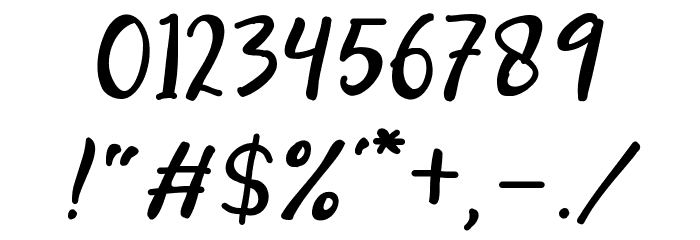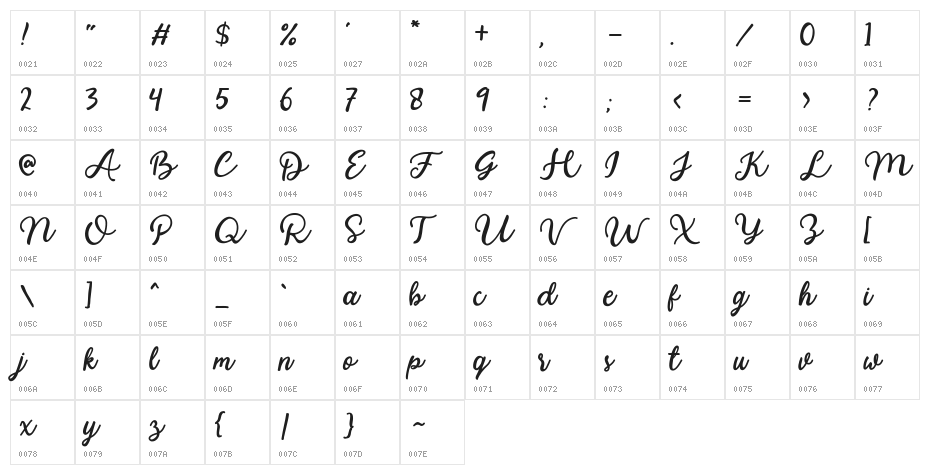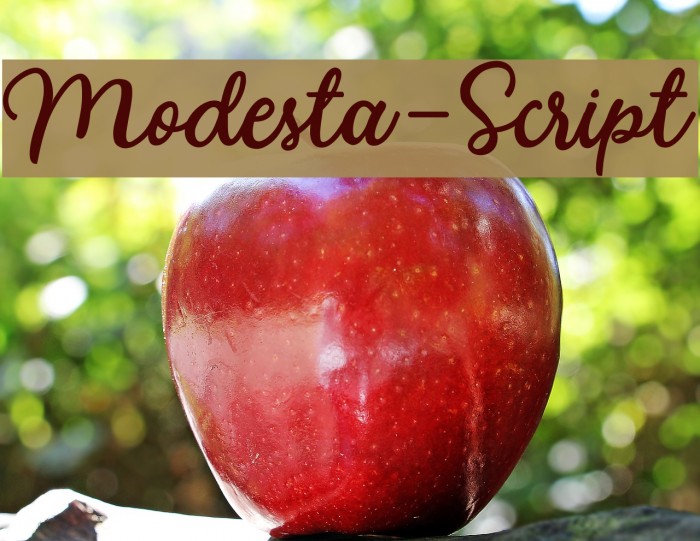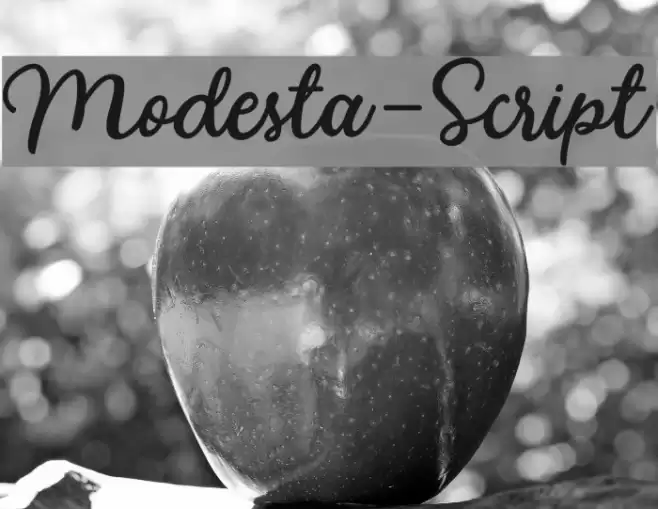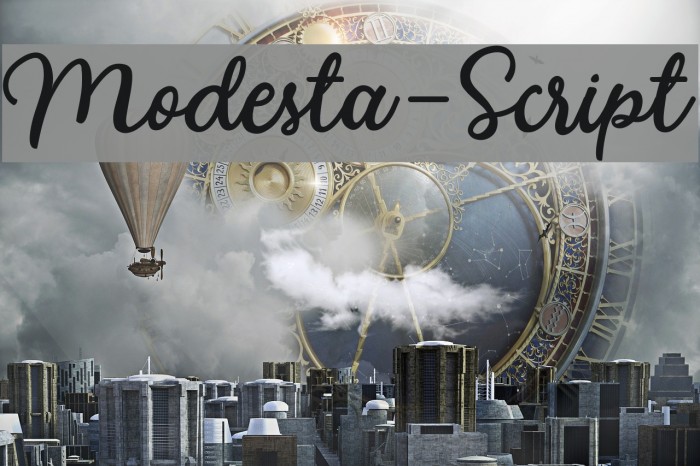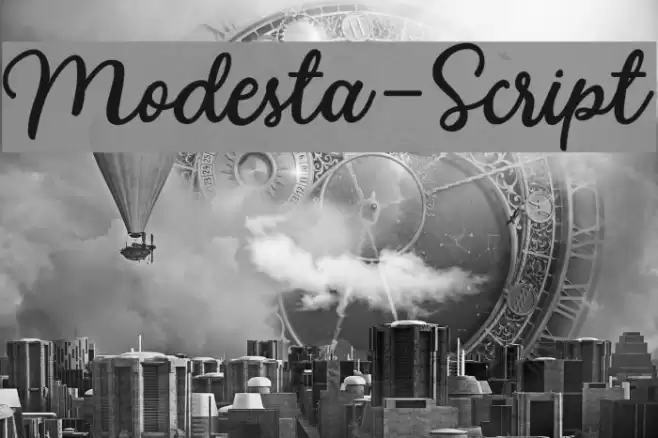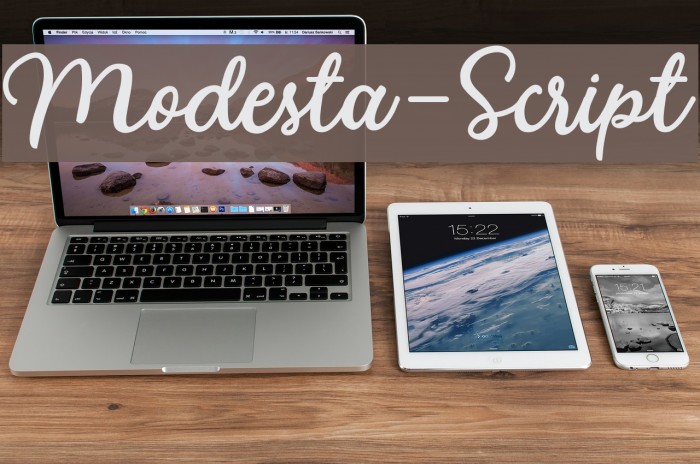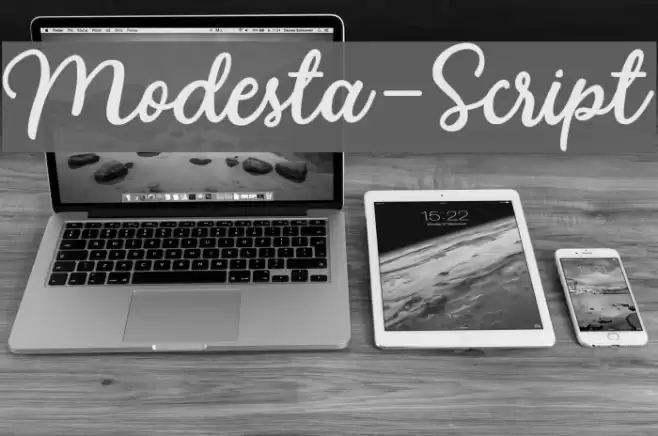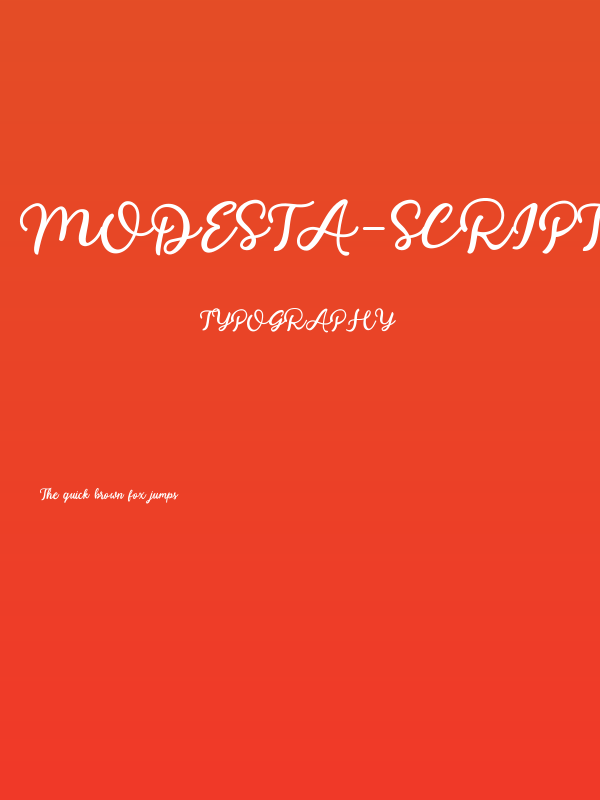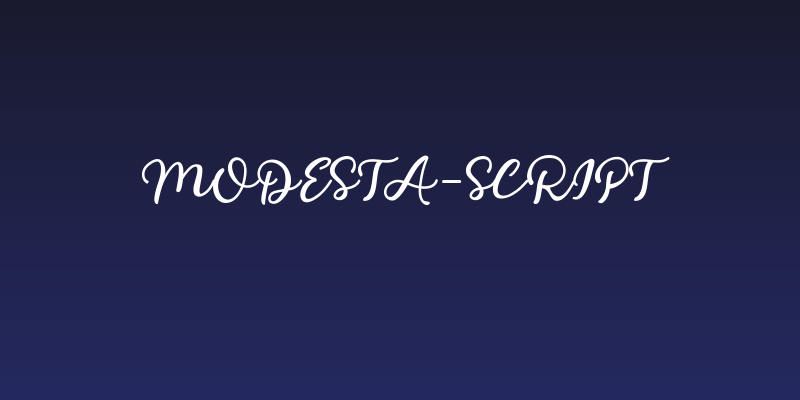
Modesta-Script Font
Modesta-Script Description
This script font exudes elegance and fluidity, characterized by its smooth, flowing strokes and cursive style. The uppercase letters are gracefully connected, while the lowercase letters maintain a consistent rhythm, enhancing readability. The numerals and special characters are crafted with the same attention to detail, ensuring a harmonious appearance across all elements. The font's design is both sophisticated and approachable, making it suitable for a variety of creative applications.
Overall StyleElegant
Use CaseLogos, Invitations, Decorative text
Proposed ProjectsIdeal for wedding invitations, greeting cards, branding projects, and elegant packaging designs.